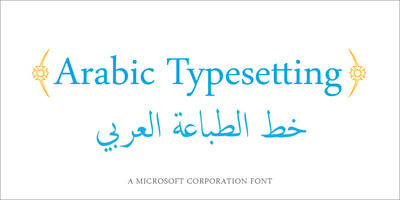
The Arabic Typesetting Font is an excellent choice for designs that demand a traditional, highly legible, and universally recognized Arabic script, perfect for formal documents and widespread publication. Imagine it providing clear and authoritative text for academic papers and religious texts, adding a dignified and authentic feel to official government documents in Arabic-speaking regions, or enhancing the readability of news articles and online content. It's also perfectly suited for educational materials, classical Arabic literature, and any project where you need to convey a sense of established tradition, meticulous detail, and broad accessibility in the Arabic script. With its adherence to classic calligraphic principles, the Arabic Typesetting Font is ideal for projects that prioritize clarity, precision, and a timeless visual presentation.
What makes the Arabic Typesetting Font truly exciting is its dedication to presenting Arabic text with utmost clarity and traditional beauty. It’s designed to ensure excellent legibility for long-form reading, balancing the intricate nature of Arabic script with modern digital rendering capabilities. This font respects the rich heritage of Arabic calligraphy while providing a clean and consistent appearance suitable for mass communication. It instills a sense of professionalism and cultural authenticity in your designs, making it a reliable workhorse for a wide array of publishing and communication needs in the Arabic language. The Arabic Typesetting Font Free Download offers a fantastic opportunity to infuse your projects with this distinctive character.
The Arabic Typesetting Font is typically designed to offer versatility through various weights and potentially stylistic alternatives, maximizing its adaptability for diverse design requirements within the Arabic script. While specific family members can vary, you can often expect to find:
• Arabic Typesetting Regular: The core design, optimized for general text and body copy.
• Arabic Typesetting Bold: For added emphasis on titles, headings, or important information.
• Arabic Typesetting Light: For a more delicate and refined appearance, suitable for subtle accents.
• Extensive Character Support: This includes a comprehensive range of Arabic characters, diacritics, and ligatures necessary for proper rendering of the script, ensuring linguistic accuracy and aesthetic integrity.
These variations provide flexibility for different design applications, allowing you to create engaging visual hierarchies and maintain a consistent, elegant aesthetic across all your projects in Arabic.